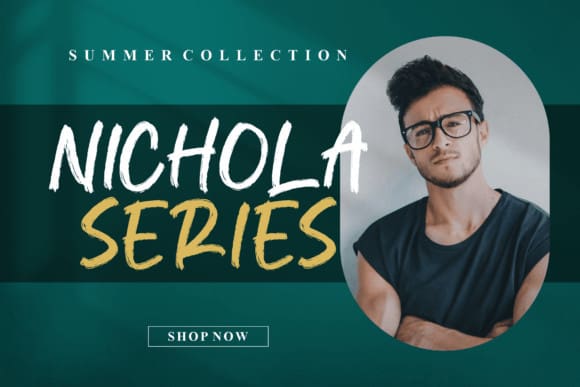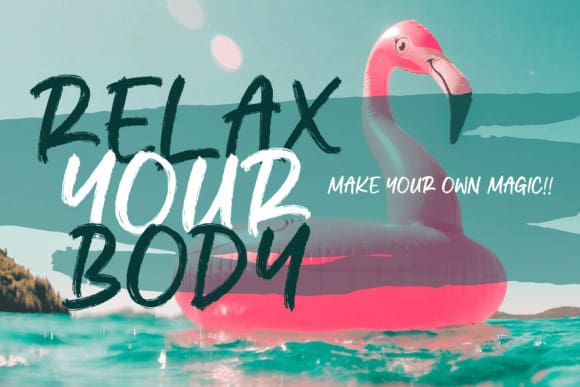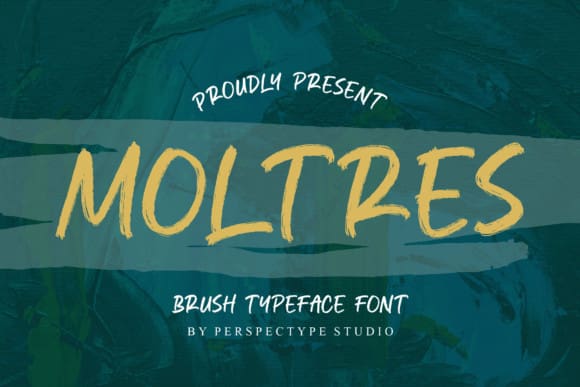
Moltres Brush Font
Moltres Brush Font – Brush Typeface Font suitable for any projects such as logos, branding projects, homeware designs, product packaging, mugs, quotes, posters, shopping bags, t-shirts, book covers, name cards, invitation cards, greeting cards, label, photography, watermark, special events, and all your other lovely projects that need a beautiful handwritten taste.